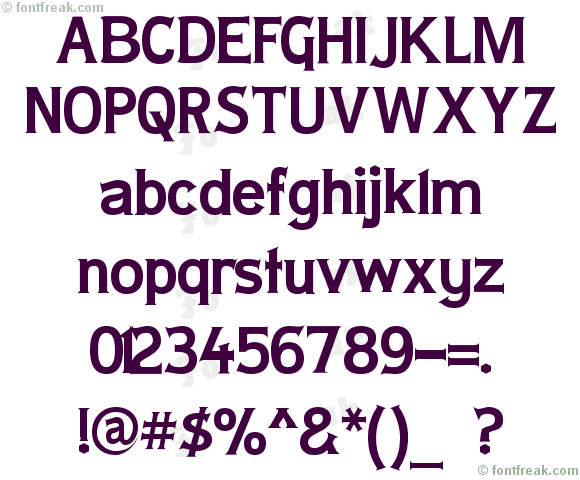
Lady Copra
Lady Copra Alternate
Lady Copra Narrow
Lady Copra Wide
About Lady Copra
Lady Copra, designed by Graham Meade and released by Gemfonts in 2001, is a captivating display font that exudes a unique blend of elegance and boldness. This freeware typeface showcases a distinctive serif style, characterized by its striking stroke weight and a harmonious balance between narrow and wide forms. The font features well-defined contrast, providing a visual dynamism that catches the eye. Its decorative elements add an artistic flair, making it versatile for various design applications.
Ideal for wedding invitations, Lady Copra brings a touch of sophistication to special events. Its bold yet graceful appearance makes it an excellent choice for movie posters, where it can convey drama and excitement. Additionally, this font can elevate restaurant menus, providing an engaging and stylish presentation of cuisine. Graphic designers and content creators will find it particularly useful for branding purposes, as it embodies a memorable aesthetic that can set a brand apart. Small business owners looking to create impactful marketing materials will also appreciate its versatility.
What truly makes Lady Copra stand out is its ability to merge creativity with functionality. It is not just a typeface; it is a statement that reflects a brand's personality. With its free license, users can easily access the Lady Copra font free download, making it an attractive option for any project. Whether you are crafting a visually stunning poster or designing elegant invitations, this font is sure to enhance your work and leave a lasting impression. With its artistic charm and practical application, Lady Copra is a valuable addition to any designer's toolkit.